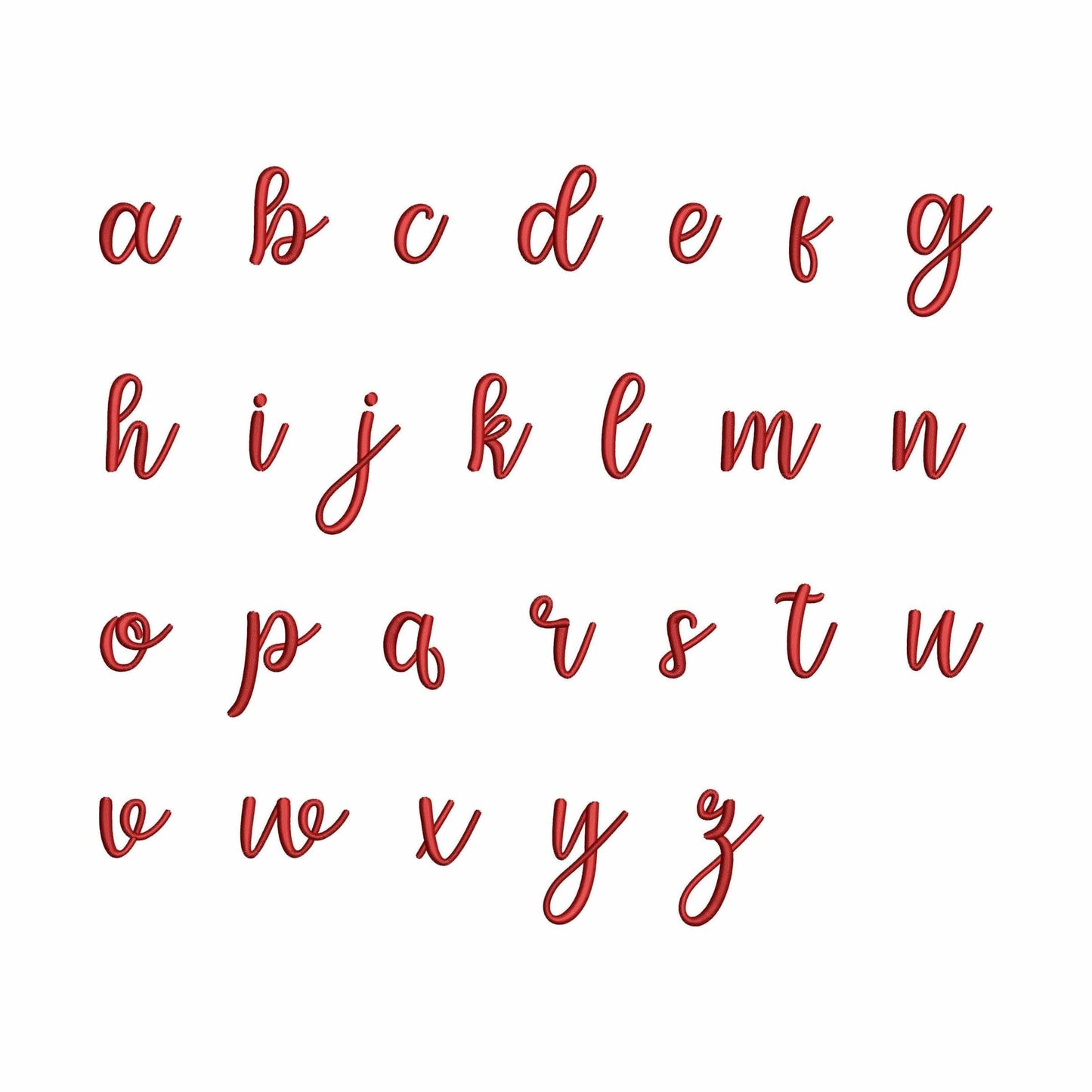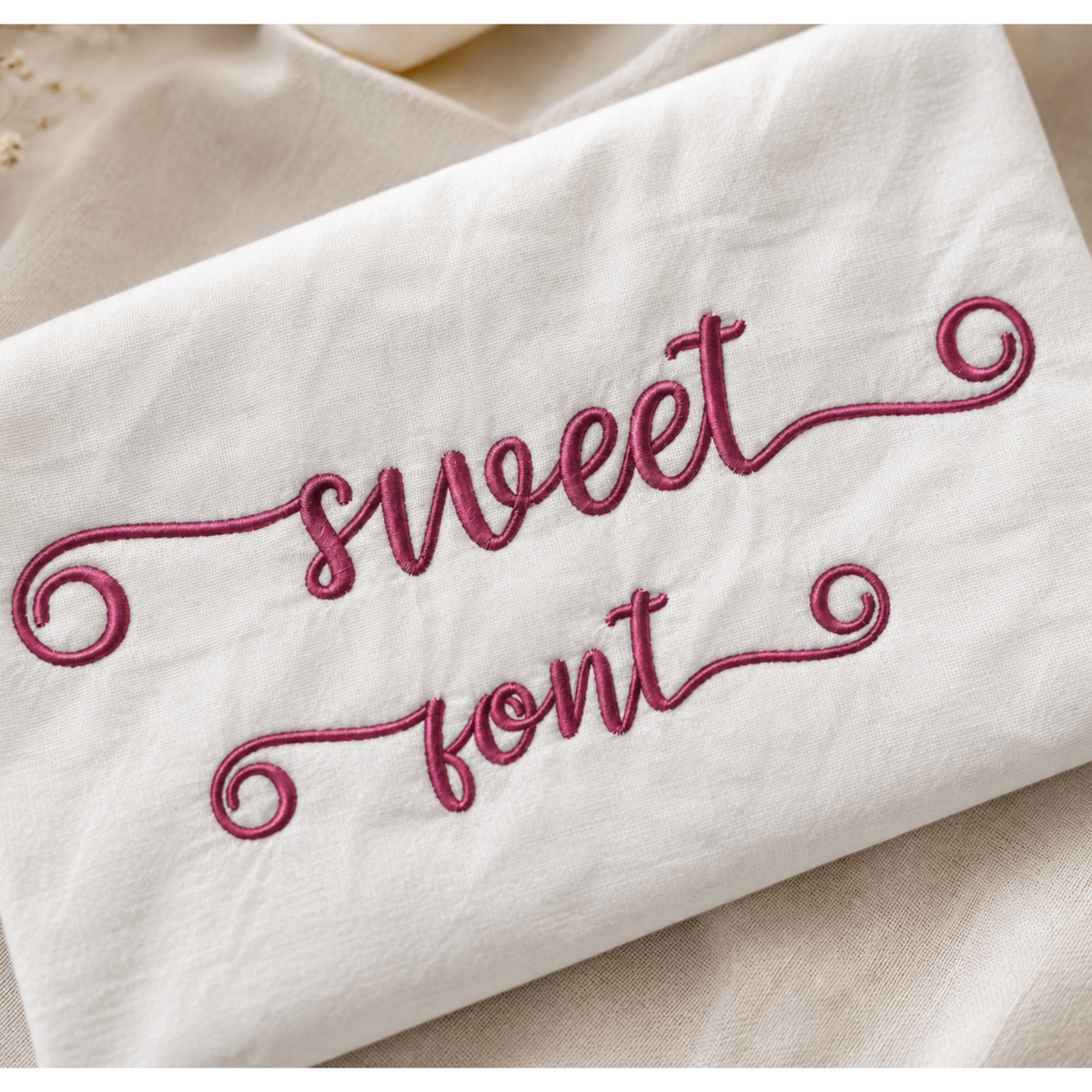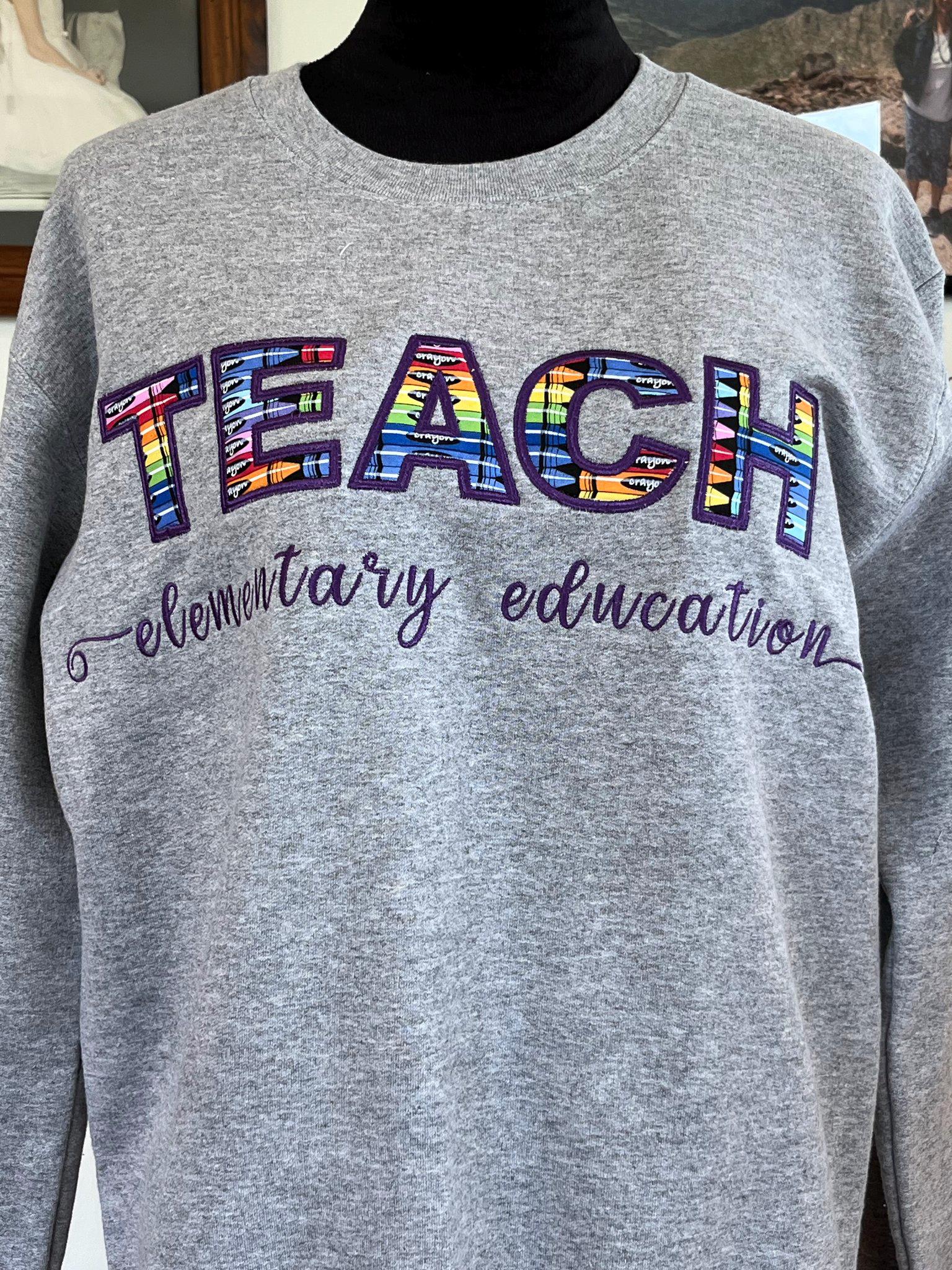
Sweet with tails - Embroidery font
This machine embroidery font with tails works well for monograms, name shirts, towels, gifts, and decorative personalized embroidery.
A strong choice for makers who want script lettering with flowing tails for sweet feminine projects.